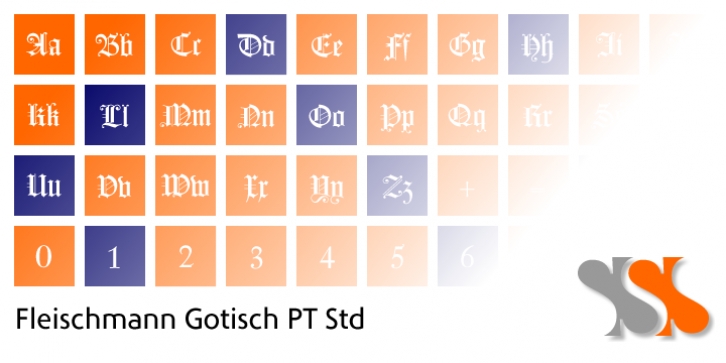
Johann Michael Fleischmann was born June 15th, 1707 in Wöhrd near Nuremberg. After attending Latinschool he started an apprenticeship as punchcutter in the crafts enterprise of Konstantin Hartwig in Nuremberg, which ought to last six years. For his extraordinary talent Fleischmann completed his apprenticeship after four and a half years, which was very unusual. 1727 his years of travel (very common in these days) began, during which he perfected his handcraft by working in different enterprises as journeyman. First location was Frankfurt/Main where he worked for nearly a year at the renowned type foundery of Luther and Egenolff. Passing Mainz he continued to Holland, where he arrived in November 1728 and stayed till he died in 1768.
In Amsterdam he worked for several type founderies, among others some weeks for Izaak van der Putte; in The Hague for Hermanus Uytwerf. Between 1729 and 1732 he created several exquisite alphabets for Uytwerf, which were published under his own name (after his emigration to Holland Fleischmann abandoned the second n in his name), apparently following the stream of the time.
After the two years with Uytwerf, Fleischmann returned to Amsterdam, where he established his own buiseness as punchcutter; following an advice of the bookkeeper and printer from Basel Rudolf Wetstein he opened his own type foundery 1732, which he sold in 1735 to Wetstein for financial reasons. In the following Fleischmann created several types and matrices exclusively for Wetstein.
In 1743 after the type foundery was sold by Wetstein’s son Hendrik Floris to the upcoming enterprise of Izaak and Johannes Enschedé, Fleischmann worked as independent punchcutter mostly for this house in Haarlem. Recognizing his exceptional skills soon Fleischmann was consigned to cutting the difficult small-sized font types. The corresponding titling alphabets were mostly done by Jaques-Francois Rosart, who also cut the main part of the ornaments and borders used in the font examples of Enschedé.
Fleischmann created for Enschedé numerous fonts. The font example published 1768 by Enschedé contains 3 titling alphabets, 16 antiquacuts, 14 italic cuts, 13 textura- and 2 scriptcuts, 2 greek typesets (upper cases and ligatures), 1 arabic, 1 malayan and 7 armenian font systems, 5 sets of musicnotes and the poliphonian musicnotesystem by Fleischmann. In total he brought into being about 100 alphabets - the fruits of fourty years of creative work as a punchcutter.
Fleischmann died May 27th, 1768 at the age of 61. For a long time he was thought one of the leading punchcutters in Europe. A tragedy, that his creating fell into the turning of baroque to classicism. The following generations could not take much pleasure in his imaginative fonts, which were more connected to the sensuous baroque than to the bare rationalism of the upcoming industrialisation. Unfortunately therefore his masterpieces did not survive the 19th century and person and work of Fleischmann sank into oblivion.
The impressive re-interpretation of the Fleischmann Antiqua and the corresponding italics by Erhard Kaiser from Leipzig, which were done for the Dutch Type Library from 1993 to 1997, snatched Fleischmann away from being forgotten by history. Therefore we want to place strong emphasis on this beautiful font.
Fleischman Gotisch The other fonts by Fleischmann are only known to a small circle of connoisseurs and enthusiasts. So far they are not available in adequat quality for modern systems. Same applies the “Fleischman Gotisch”, which has been made available cross platform to modern typeset-systems as CFF Open Type font through the presented sample.
The Fleischman Gotisch has been proved to be one of the fonts, on which Fleischmann spent a good deal of his best effort; this font simply was near to his heart. Between 1744 and 1762 he created 13 different sizes of this font. All follow the same principles of forms, but their richness of details has been adapted to the particular sizes. In later times the font was modified more or less sensitive by various type founderies; letters were added, changed to current taste or replaced by others; so that nowadays a unique and binding mastercopy of this font is missing.
Likewise the name of the font underwent several changes. Fleischmann himself probably never named his font, as he did with none of his fonts. By Enschedé this textura was named Nederduits, later on Nederduitsch. When the font was offered by the german type foundery Flinsch in Frankfurt/Main, the more convenient name of Fleischmann-Gotisch was chosen. In his “Masterbook of the font” and his "Abstract about the Et-character" Jan Tschichold refered to it as “Duyts” again.
To honour the genious of Johann Michael Fleischmann we decided to name the writing “Fleischmann Gotisch PT” (unhyphenated).
Developing the digital Fleischman Gotisch I decided not to use one of the thirteen sizes as binding mastercopy, but corresponding to the typical ductus of the font to re-create an independent use of forms strongly based on Fleischmann´s language of forms. All ascenders and descenders were standardised. Some characters, identified as added later on, were eliminated (especially the round lower case-R and several versions of longs- respectively f-ligatures) and others were adjusted to the principles of Fleischmann. Where indicated the diverse characters were integrated as alternative. They can be selected in the corresponding menu.